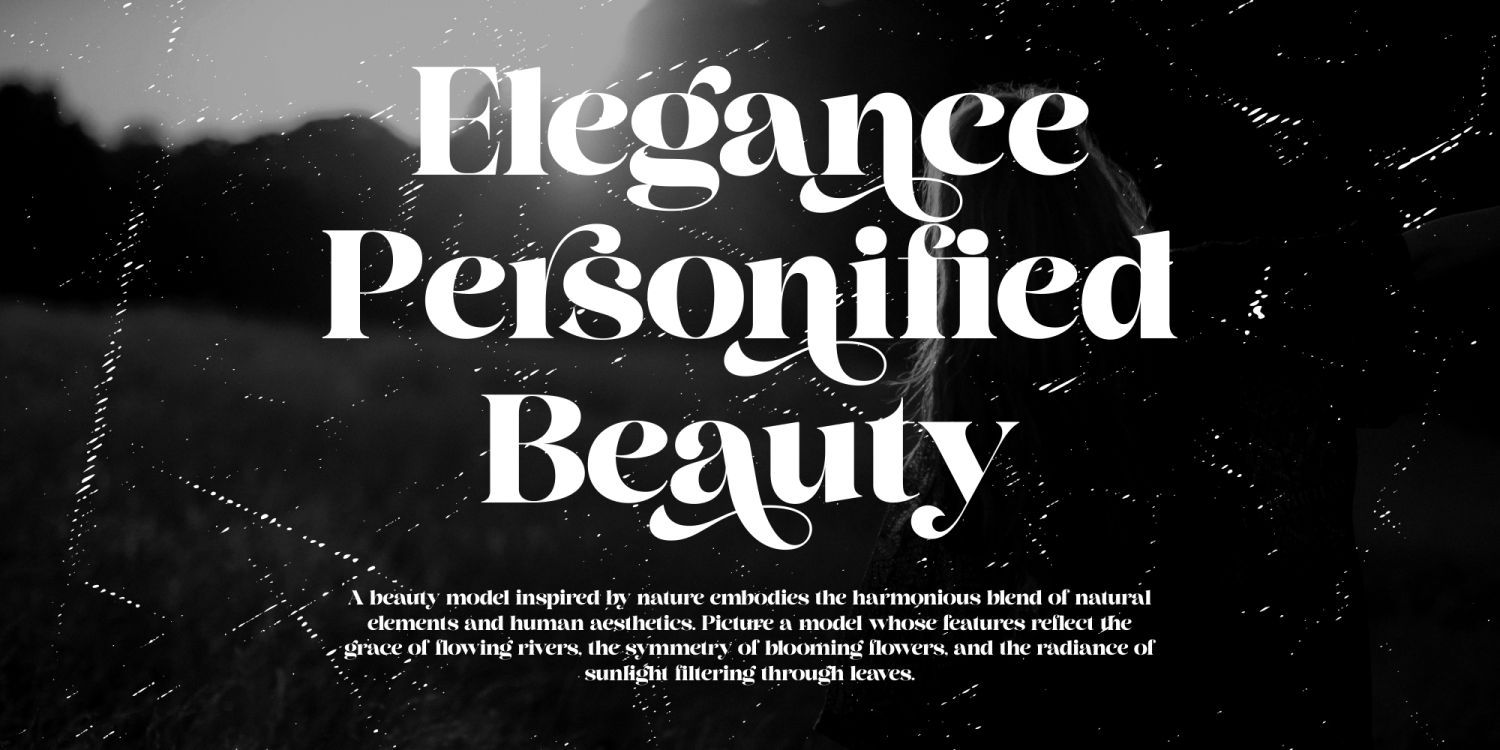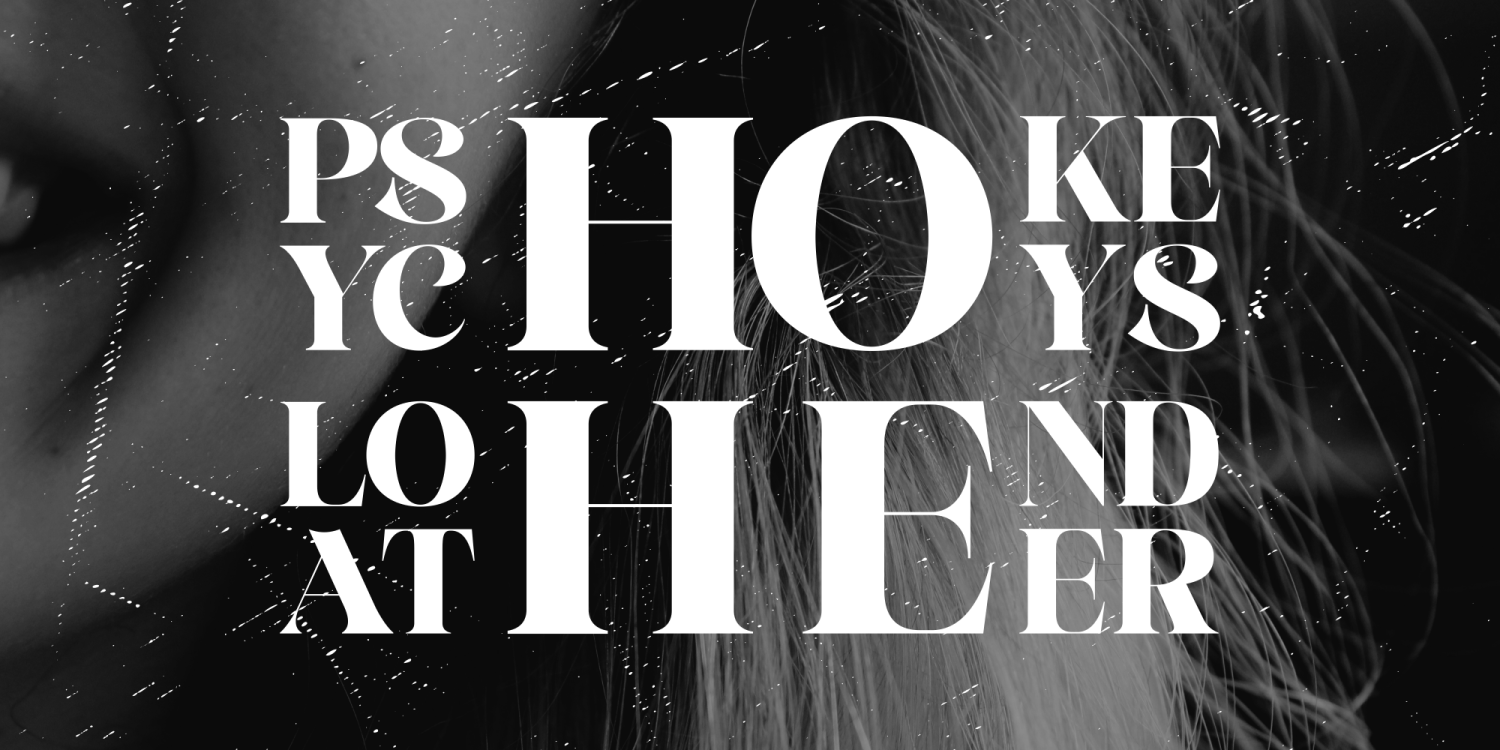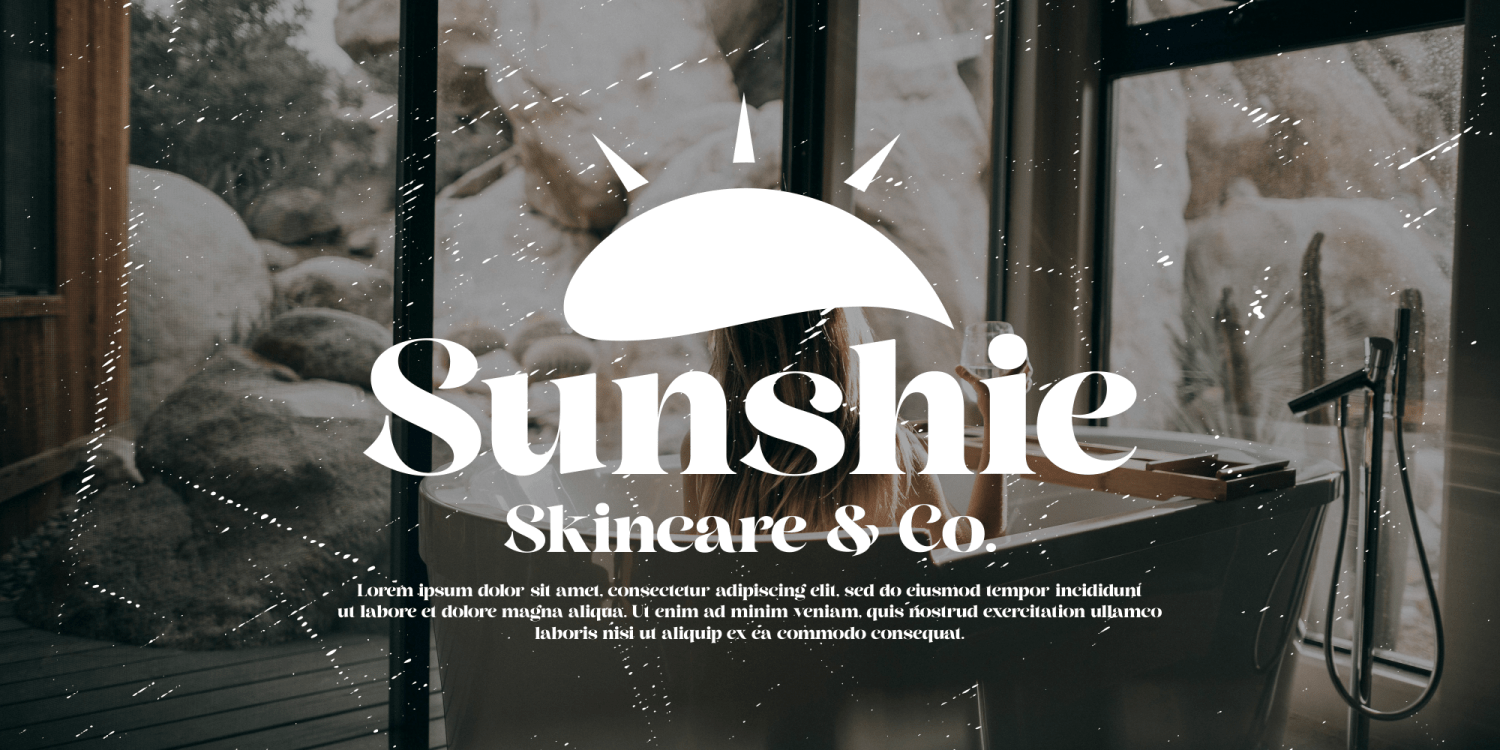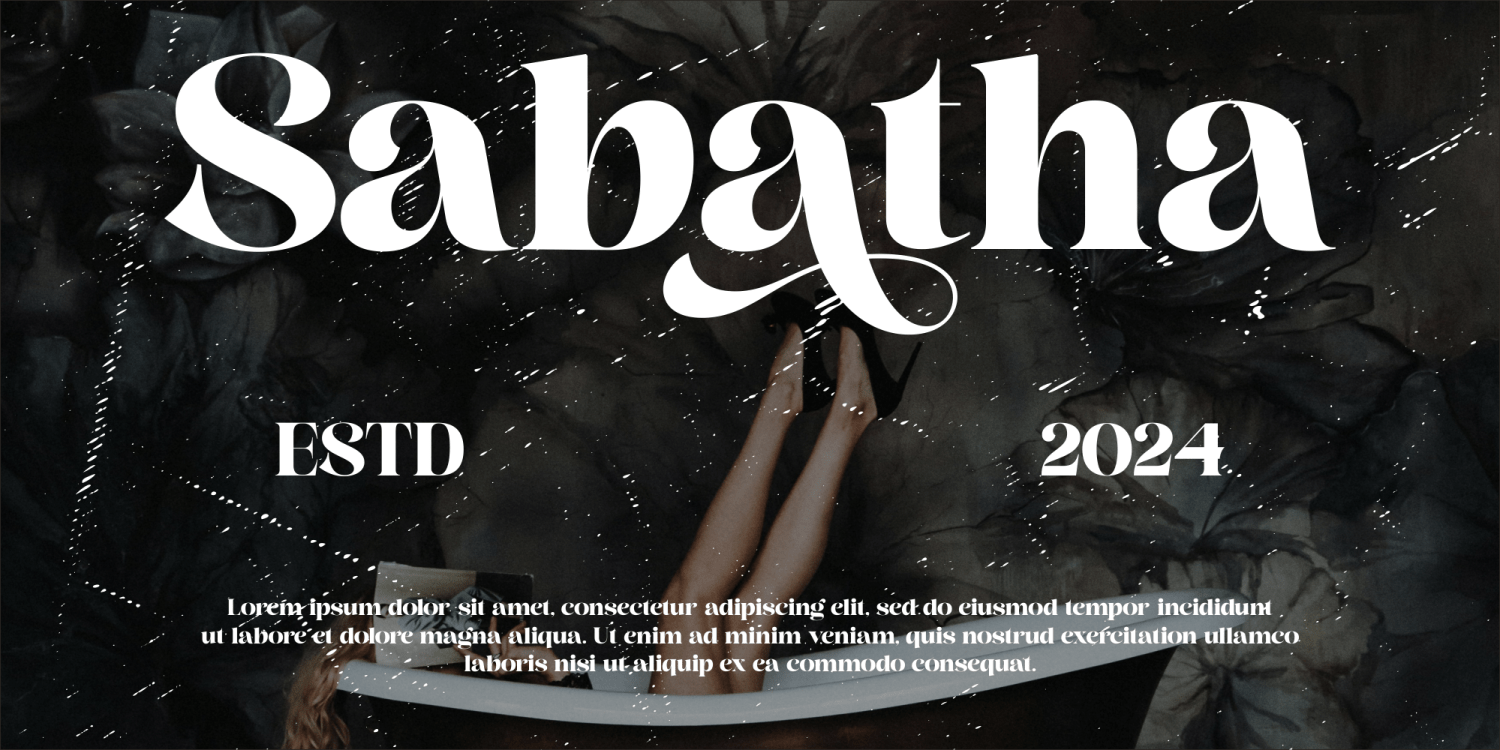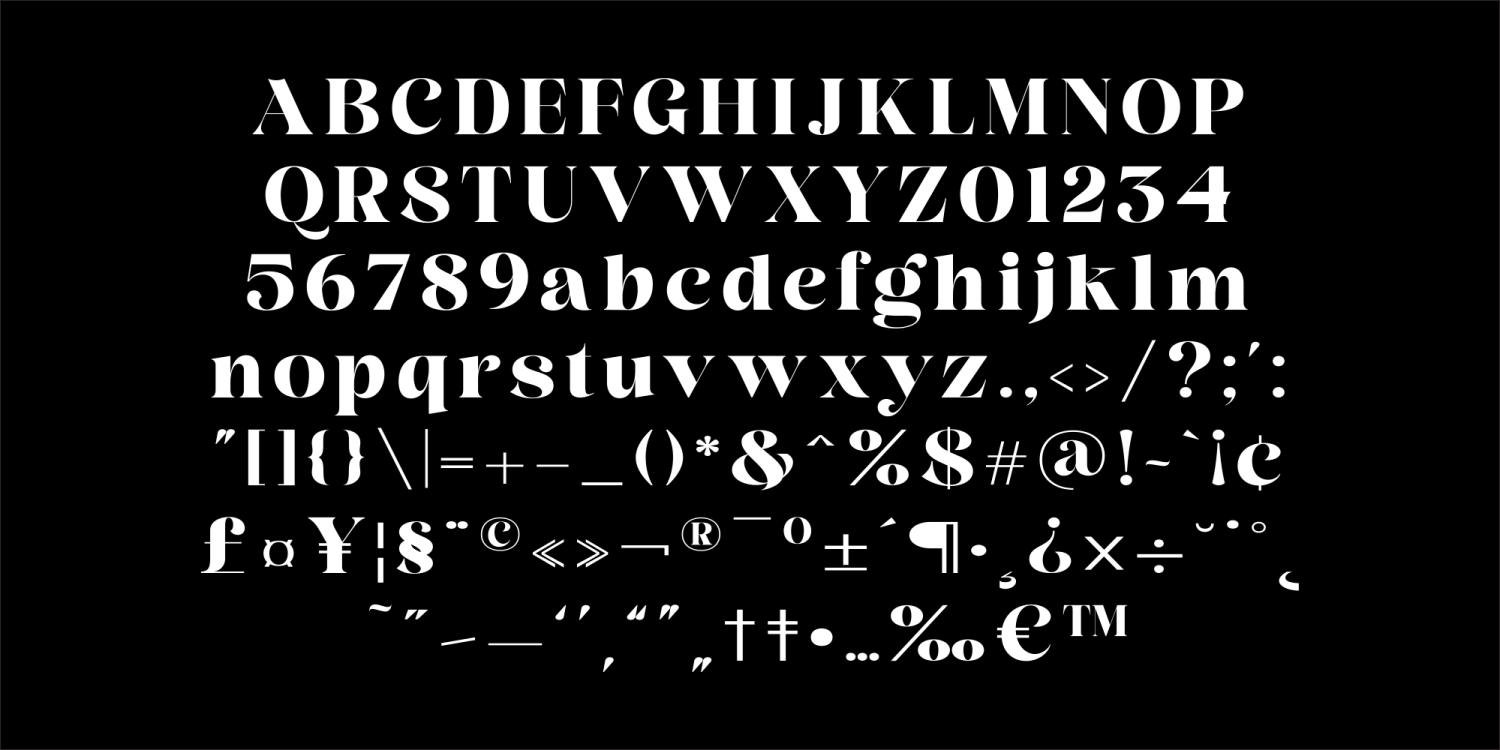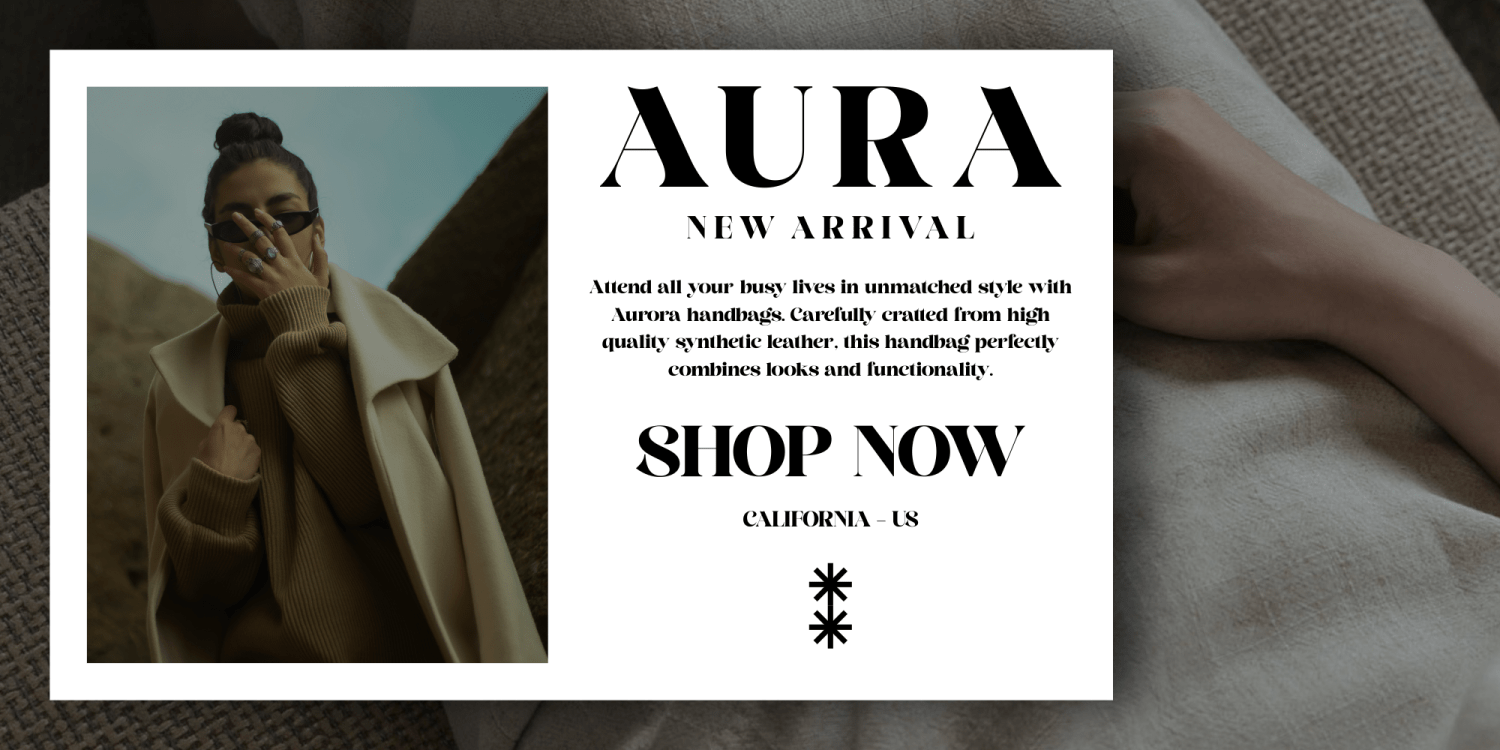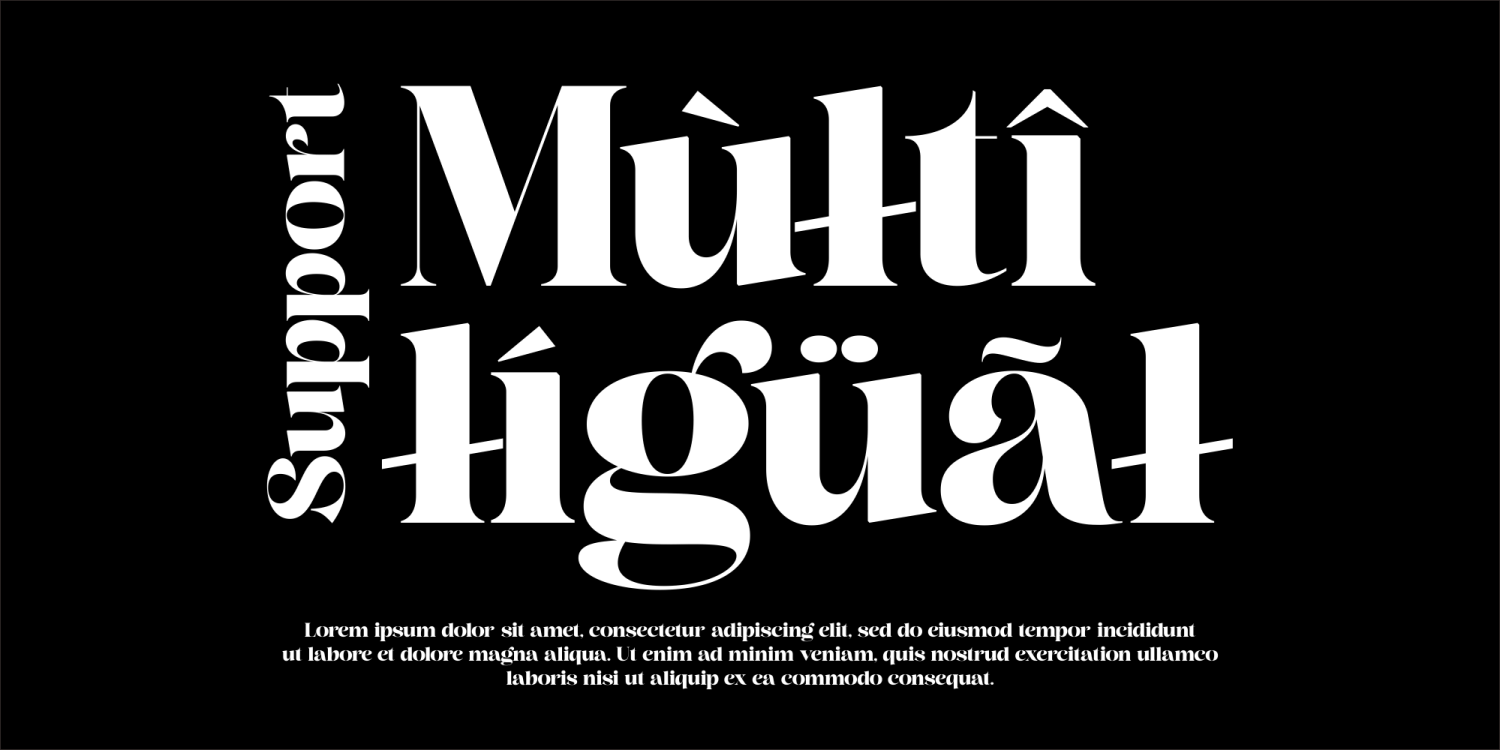
Tovira
Font Family by Marvadesign
Tovira Bold Serif is the perfect embodiment of beauty and boldness in the world of typography. With its striking serif style and charming bold characteristics, this font adds a touch of elegance to any design. What sets Tovira apart is the thin legs that flow gracefully, providing an interesting contrast to the boldness of the bold letterforms. This creates a unique harmony of strength and elegance. But the beauty of Tovira doesn't stop there. This font also comes with a variety of features, including smooth ligatures and attractive letter alternatives. Its artistic ligatures add a special touch to certain letter combinations, while its letter alternatives offer compelling variations for designers who want to explore more.